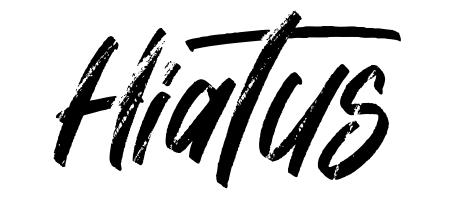
Hiatus
By Khurasan
Hiatus is a bold, expressive handwritten font. Its strokes are thick and uneven, suggesting a spontaneous, almost scribbled quality. The letters are slightly condensed, adding to the informal feel. It has a strong, energetic vibe, hinting at a youthful or rebellious spirit. The 's' is particularly distinctive with its extended flourish. Overall, it exudes a raw, hand-drawn charm.